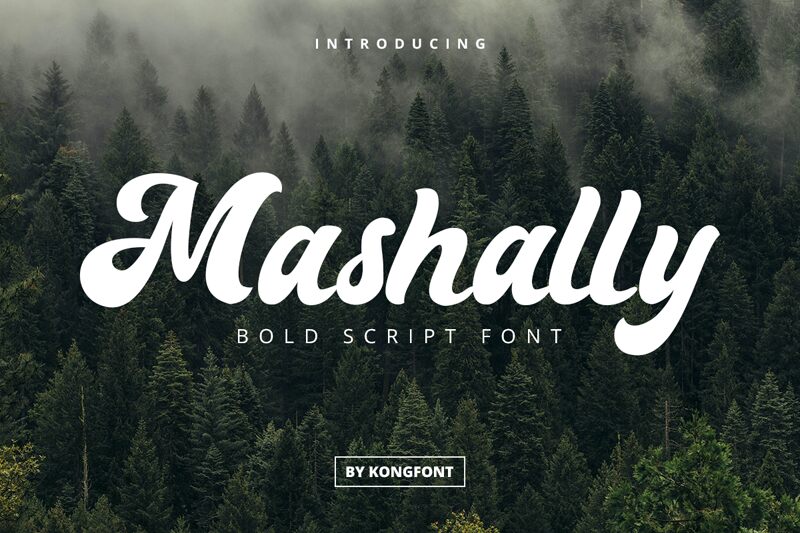
Mashally
Mashally, a bold and smooth brush font designed by Kong Font, brings a vibrant touch to your creative projects. With its expressive strokes and unique texture, this font is perfect for eye-catching headlines, logo designs, and branding materials. The bold weight enhances the impact of your message, making it suitable for packaging designs that demand attention. Whether you're working on a fashion magazine spread or creating artistic posters, Mashally's smooth brush style adds a distinctive flair to any project. Unleash your creativity with Mashally and make your designs stand out from the crowd.